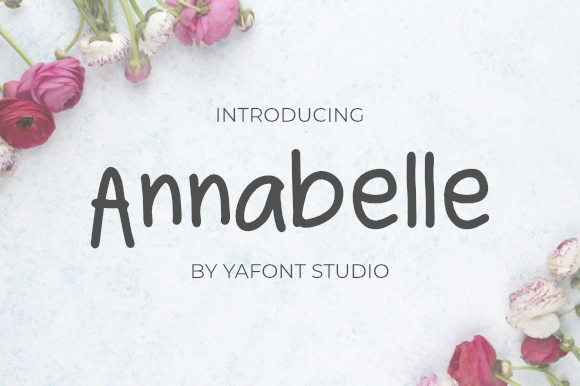
Annabelle Font
About Annabelle Font
Annabelle is a modern and delicate handwritten font. It has beautiful and well balanced characters and as a result, it matches a wide pool of designs.